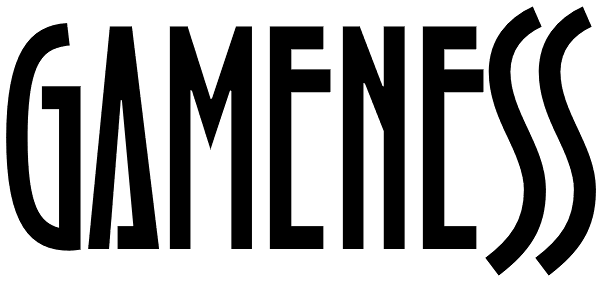
Gameness
Gameness is an exploration of the circa 1990 retro industrial deco aesthetic. An alternate barred A is included for finicky clients. In OpenType savvy applications, the S changes slightly to harmonize with adjacent letters.
Gameness Font